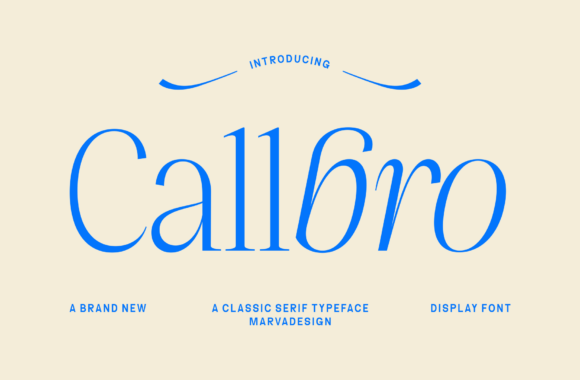
Introducing Callbro: The Elegant Serif Typeface for Sophisticated Designs
I’ll never forget the time I was working on a luxury branding project for a high-end fashion client. The brief was to create an elegant and sophisticated visual identity that exuded refinement and poise. As I scrolled through my font library, searching for the perfect typeface, I stumbled upon Callbro. Its elegant serif design and versatile style options immediately caught my attention. I knew right then and there that Callbro was the perfect fit for the project.
A Closer Look at Callbro
Callbro is an elegant serif typeface that combines sophistication with versatility. This font offers two distinctive styles: Regular and Italic Semi-Script, providing options for both classic and expressive designs. One of Callbro’s standout features is its unique alternative characters and ligatures, adding a touch of creativity and charm to your text.
What I Love About Callbro
- ✨ Elegant serif design with a sophisticated feel
- ✅ Two distinctive styles: Regular and Italic Semi-Script
- 🔥 Unique alternative characters and ligatures for added creativity
- 📚 Excellent readability, making it suitable for a variety of purposes
While Callbro is an exceptional font, there are a few minor quirks to be aware of:
- 🤔 Some users may find the font’s elegance and sophistication limiting for more playful or casual designs.
- ⚠️ The font’s unique alternative characters and ligatures may require some experimentation to get the desired look.
The Story Behind Callbro
Callbro was designed with the goal of creating a sophisticated and elegant serif typeface that combines classic and modern elements. The design process involved experimenting with different letterforms, strokes, and flourishes to create a unique and refined aesthetic. The result is a versatile font that’s perfect for a wide range of design applications.
| Font Name | Callbro Font |
| Author | Marvadesign |
| What makes Callbro unique? | Callbro’s unique alternative characters and ligatures, as well as its elegant serif design and versatile style options. |
| Is Callbro suitable for body text? | Yes, Callbro’s clean and refined design ensures excellent readability, making it suitable for body text. |